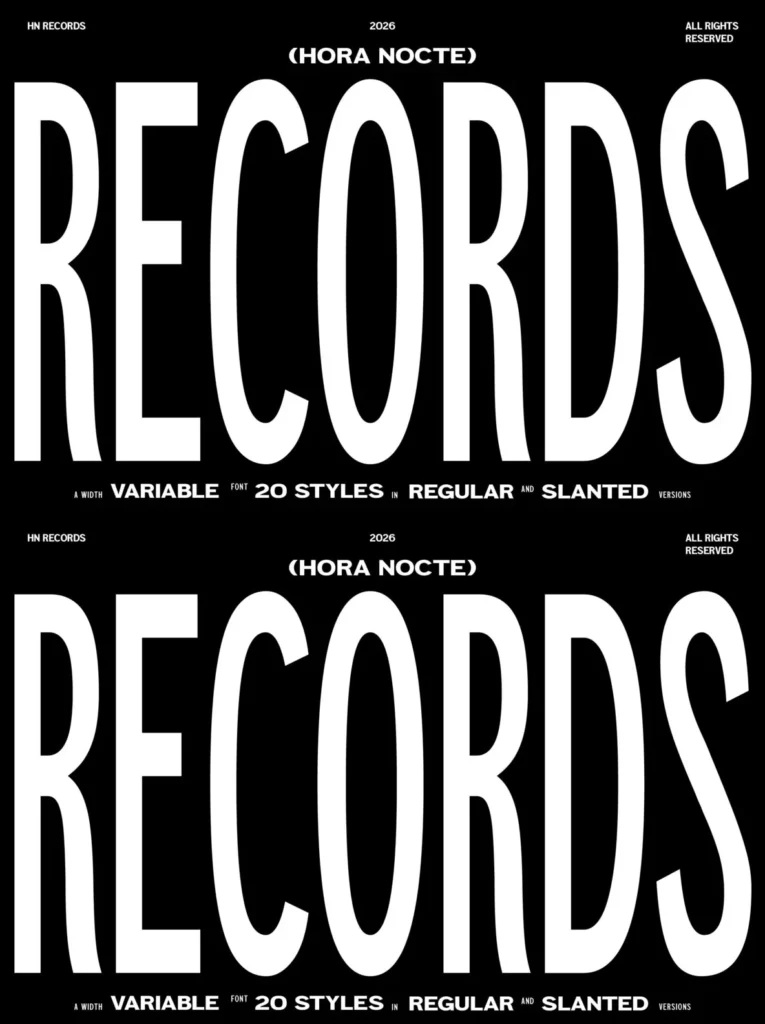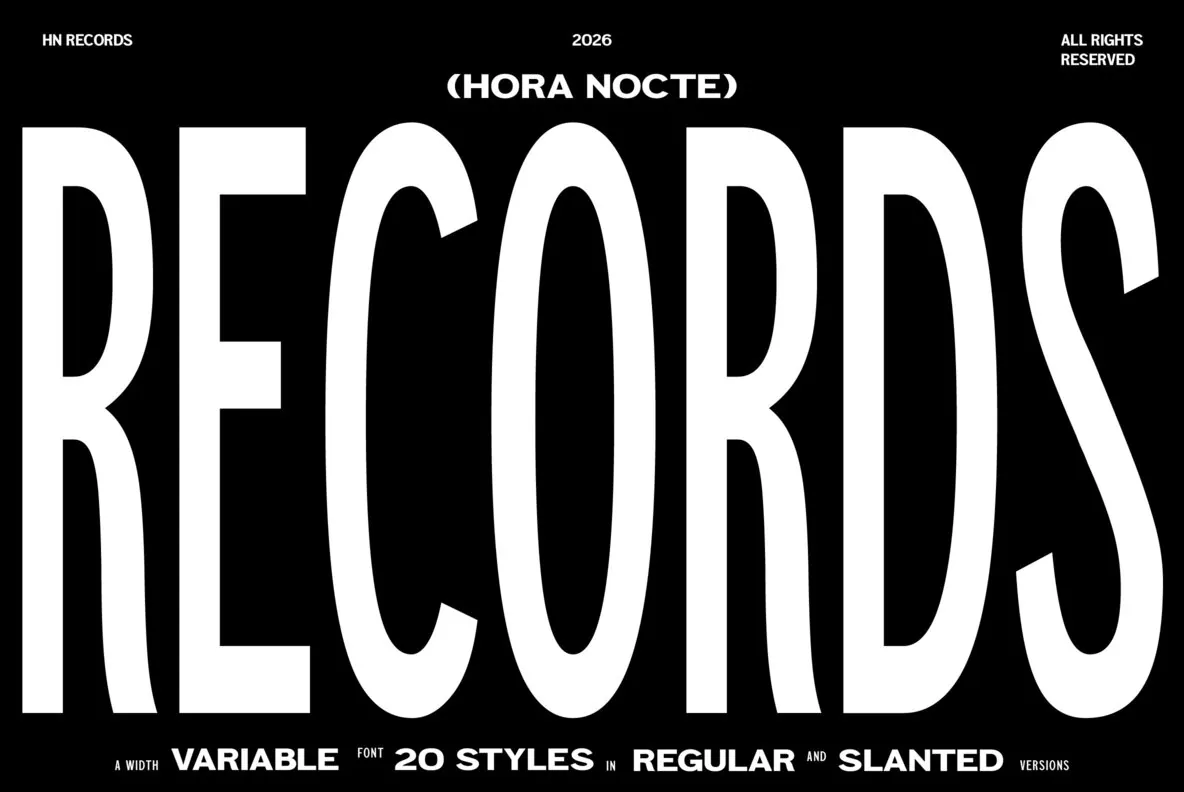
HN Records: Editorial punch with music edge
A bold variable display typeface rooted in contemporary editorial design and music culture. Tall proportions and geometric precision give each letterform clarity and assertiveness. Clean, extended curves hold attention and bring a modern sensibility to projects where visual strength matters.
Adaptability defines the family. With 10 distinctive styles in both Regular and Slanted forms, the variable width tool supports a wide range of layout needs. Use it large for headlines, layer it across posters, or place it confidently in album artwork and branding systems. It stays clear and composed across contexts that value substance and distinction.
Pronounced contrast and refined structure make it a strong choice for editorial layouts, fashion graphics, and music visuals. It also suits experimental typography and branding initiatives that require precision and boldness. Designed by hora nocte.
10 unique styles in Regular and Slanted versions
Variable width control for flexible design applications
High contrast and tall geometric letterforms
Suited for editorial design, music-related visuals, album covers, and branded environments
Ideal for projects seeking a confident, contemporary typeface with strong visual impact